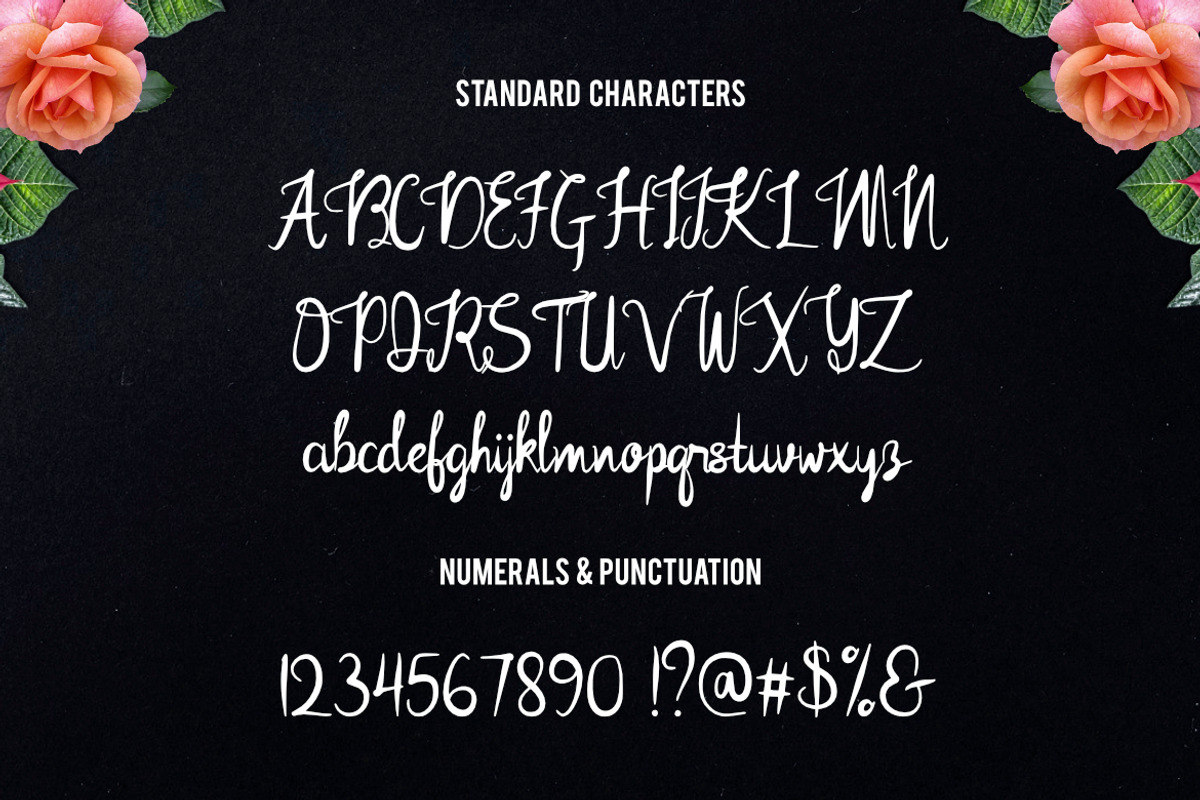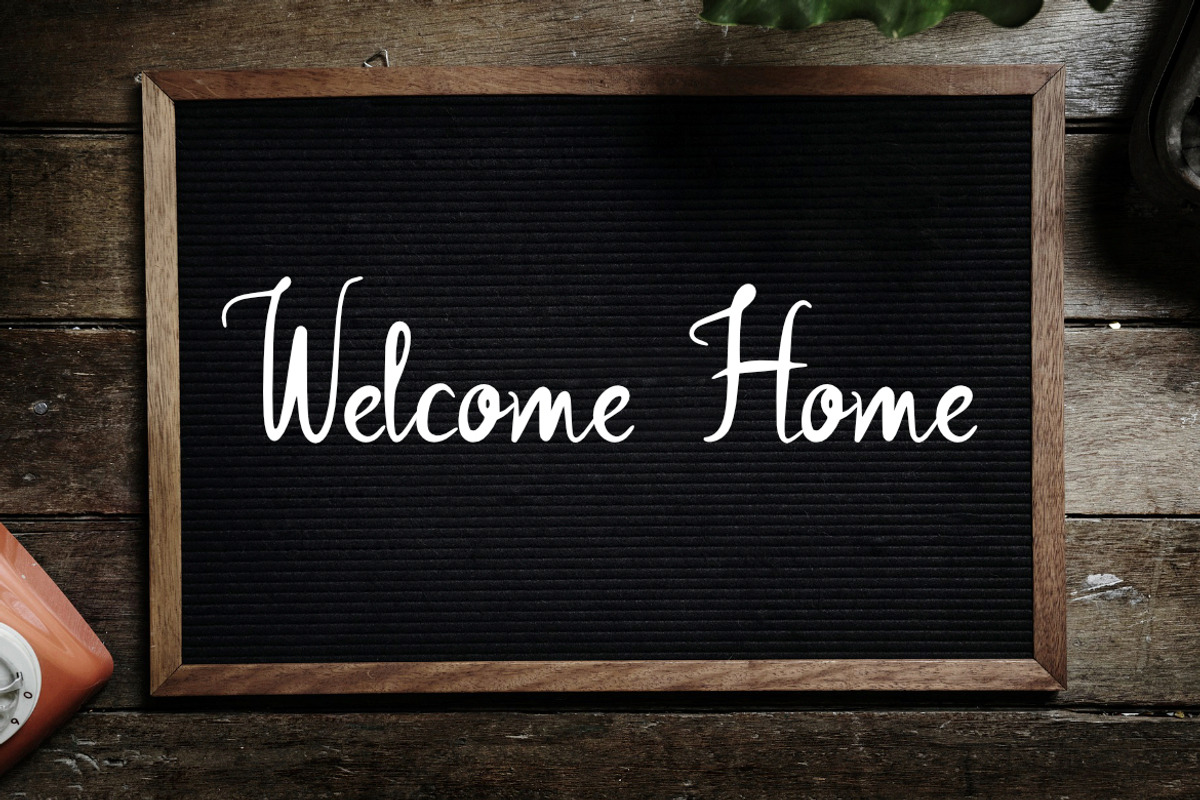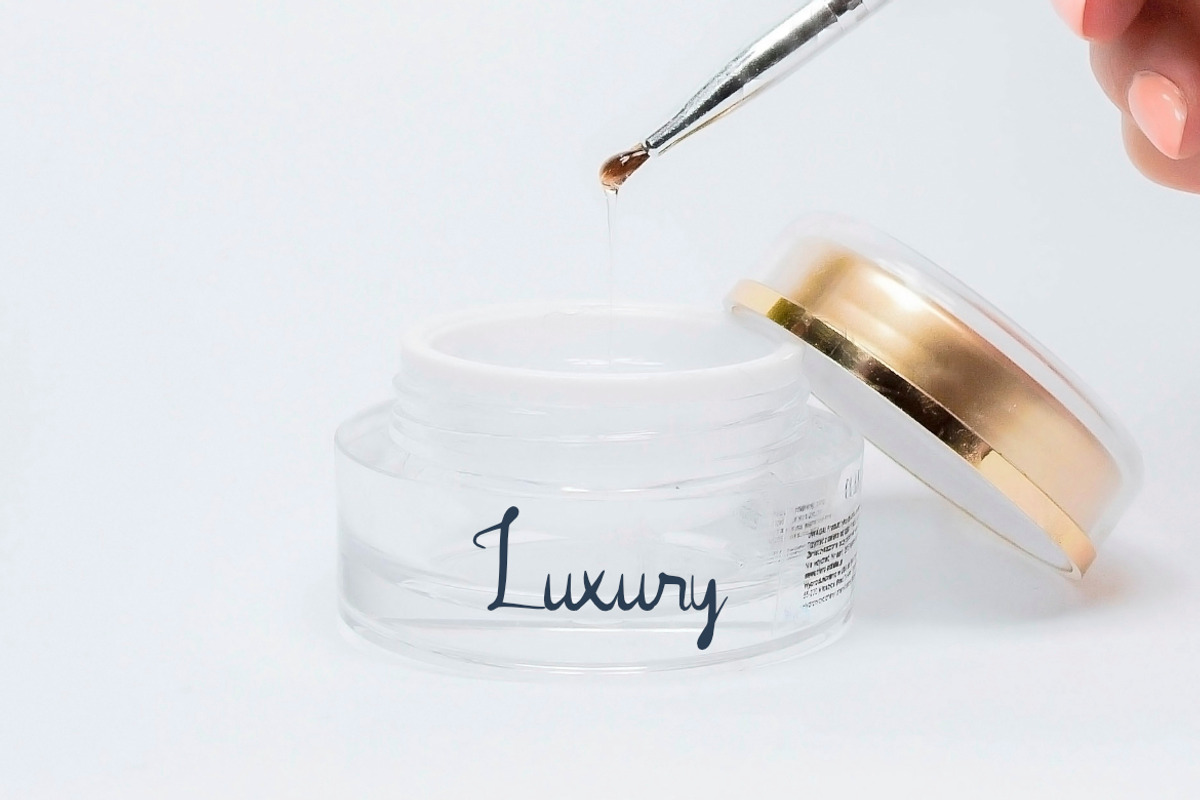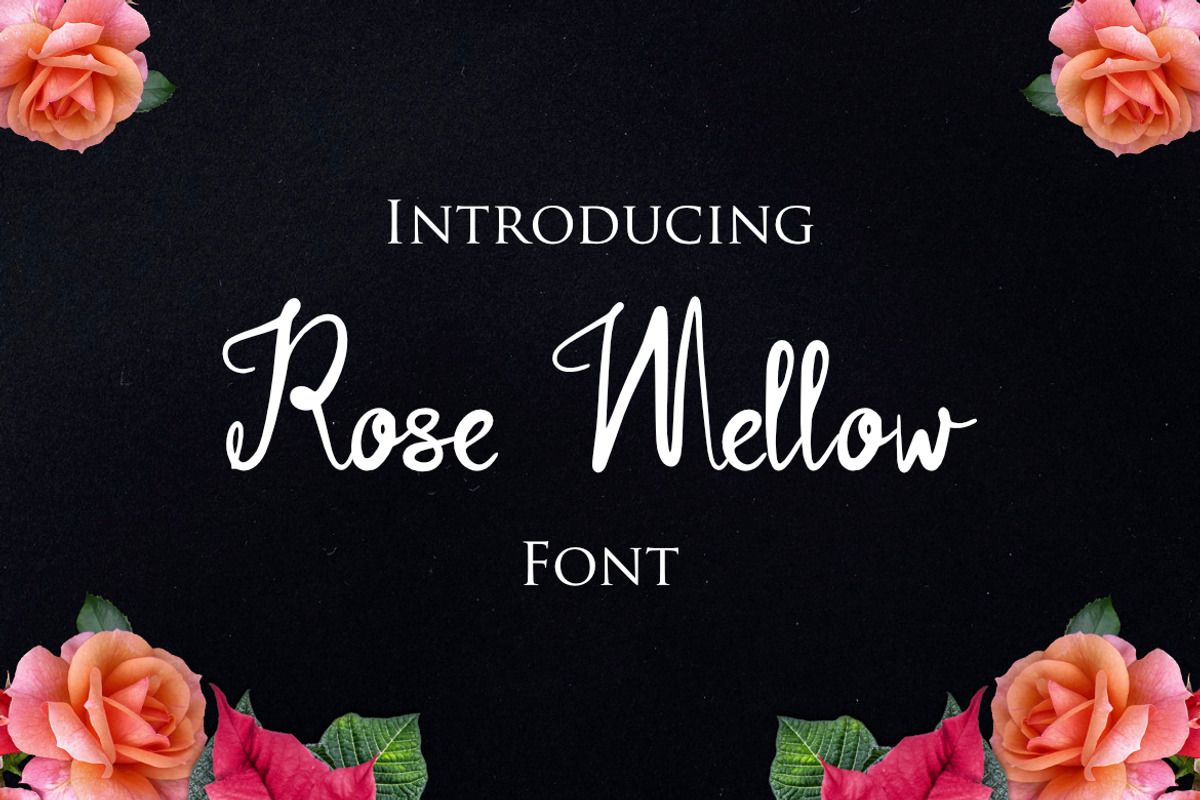
Rose Mellow Font
Simple and cool font , suitable for many project , quotes, logo , doodle, heading , title etc.
Why Rose Mellow Font is worth a look
Rose Mellow Font by ArdiDesigns fits naturally into Branding, posters, packaging, typography.